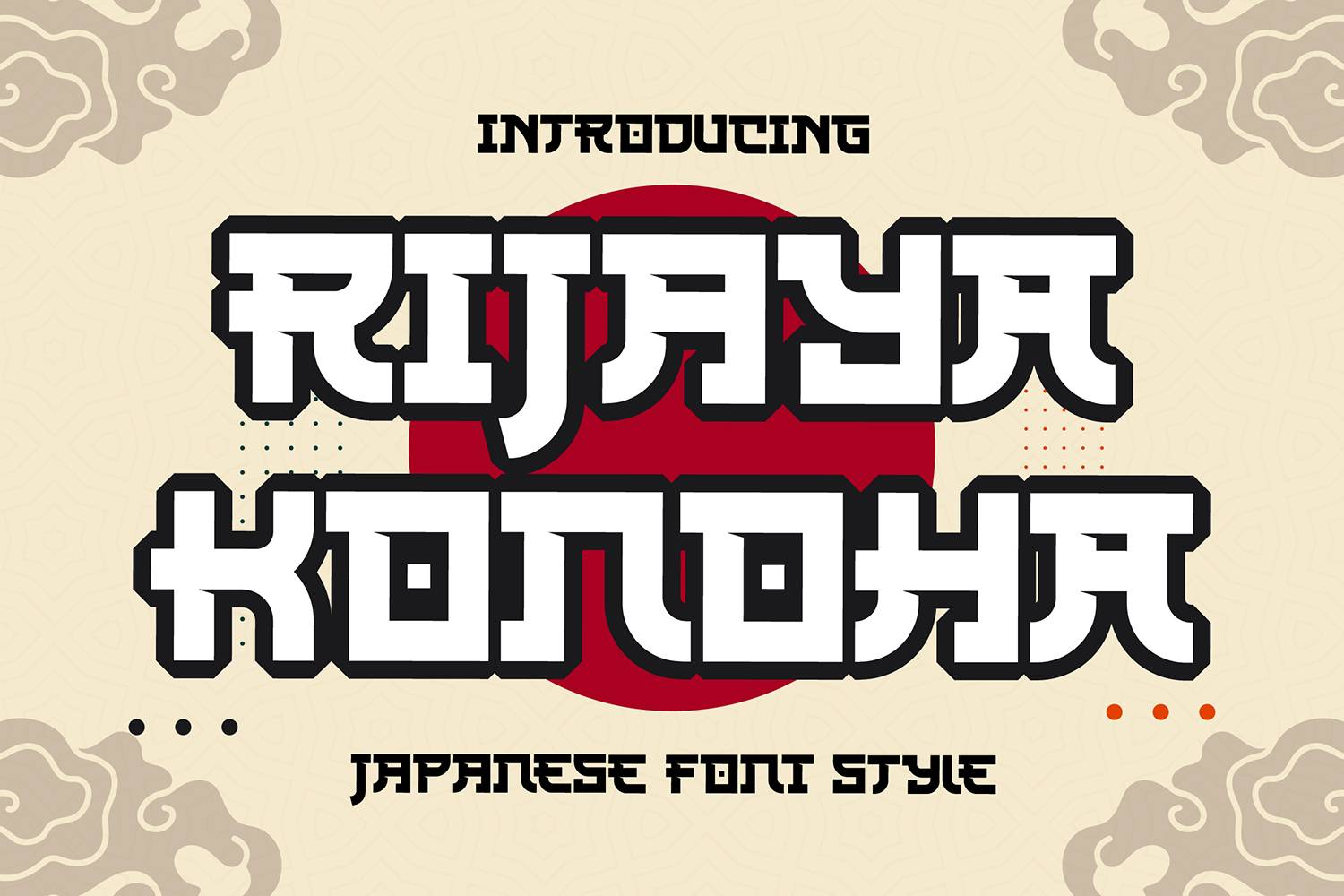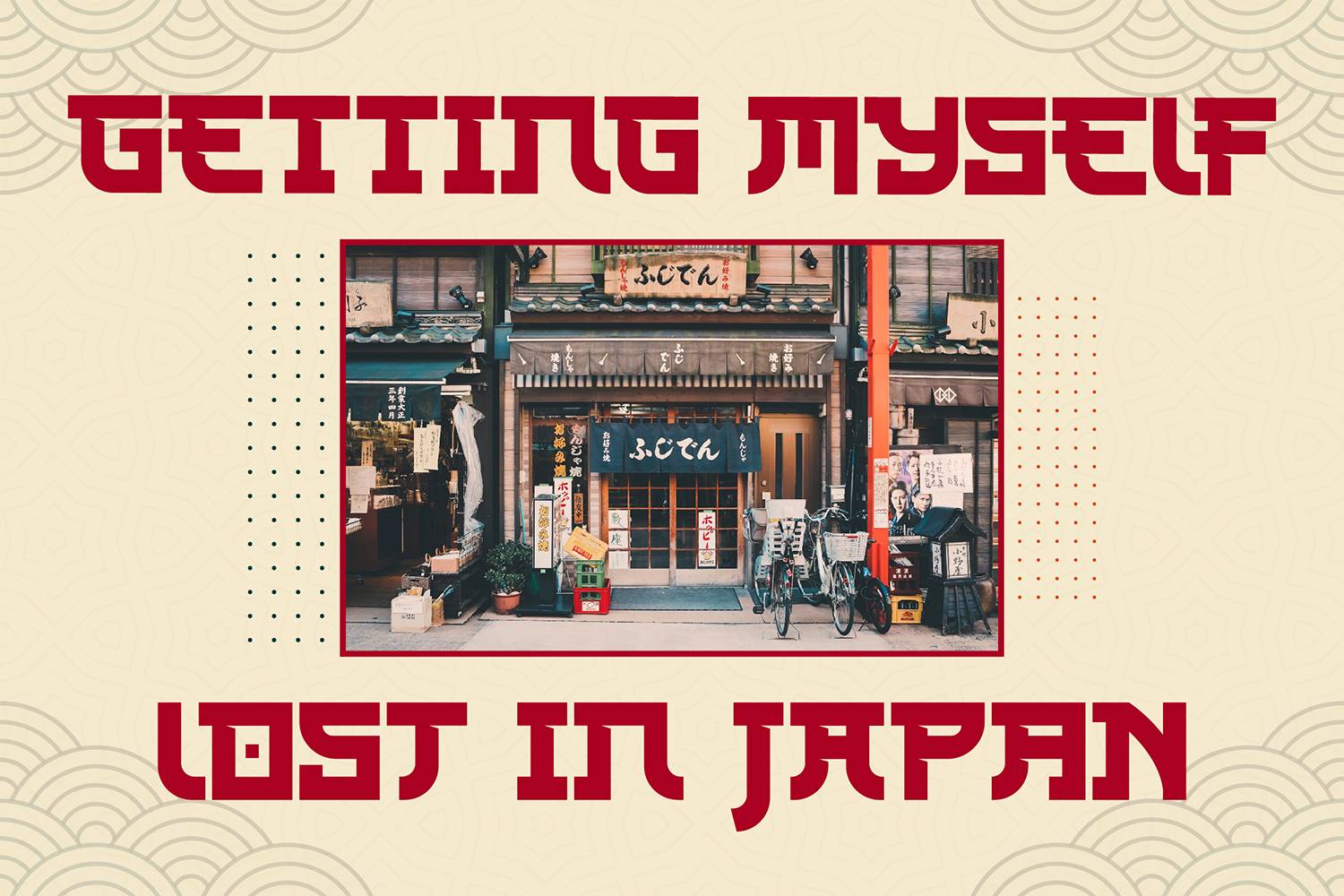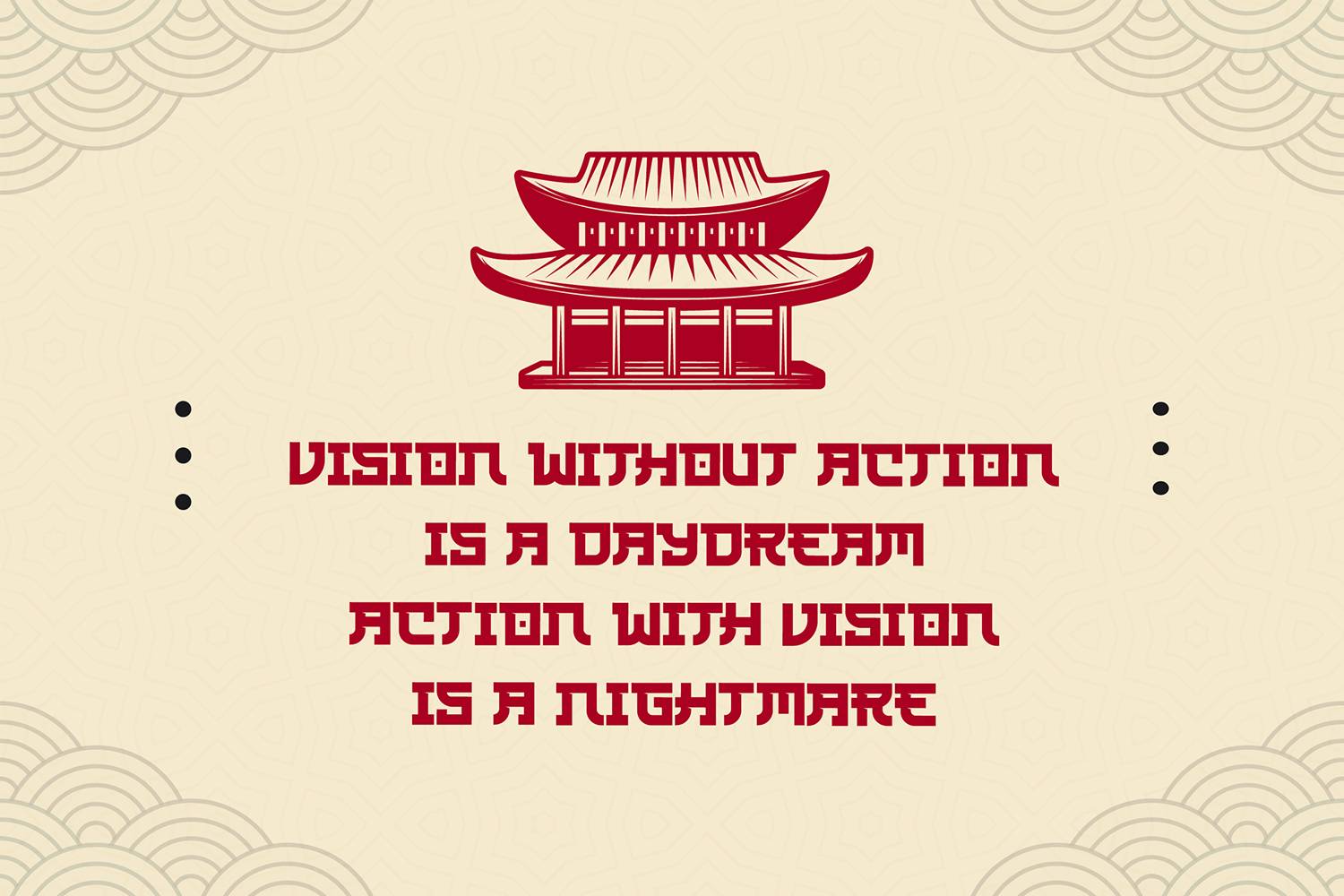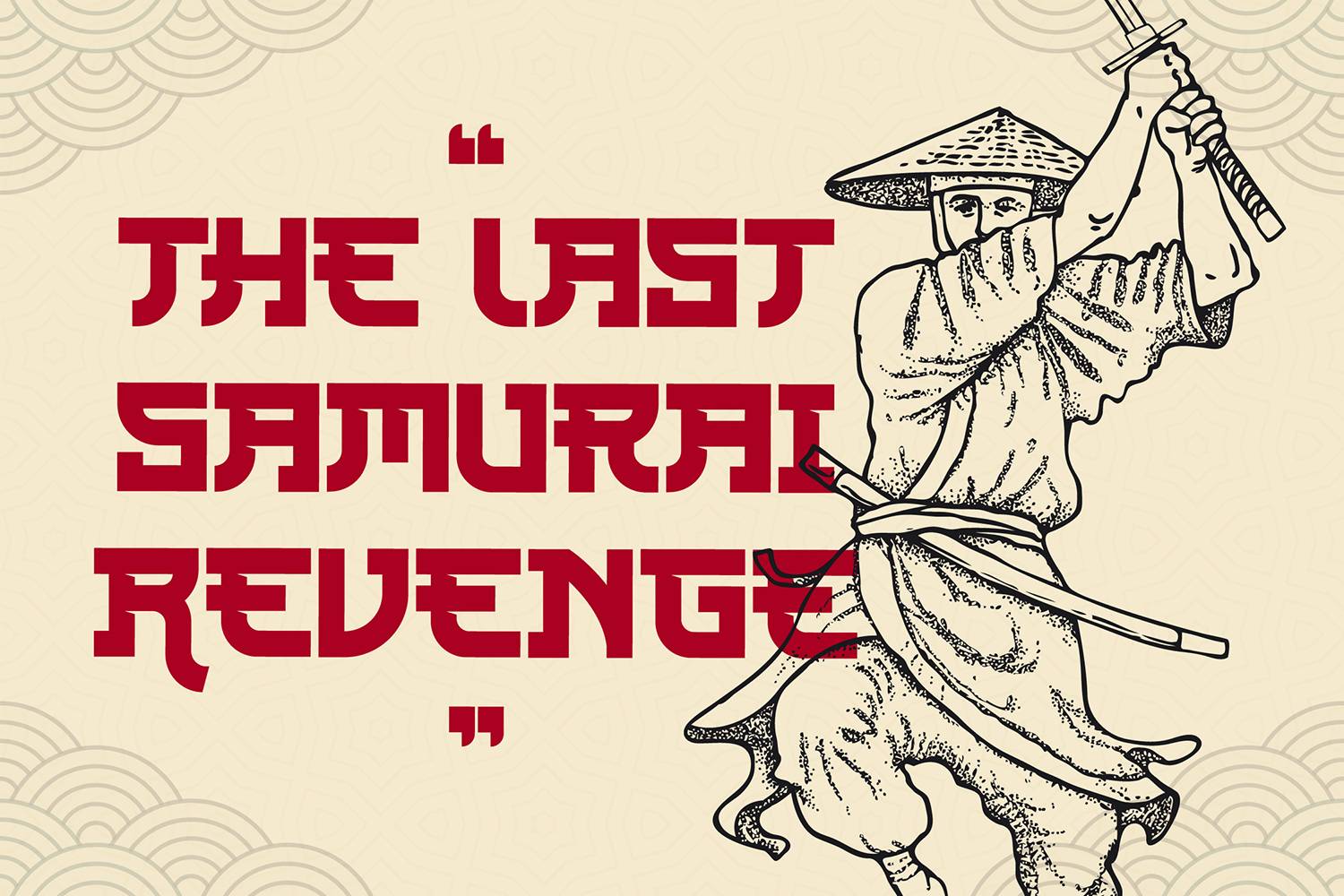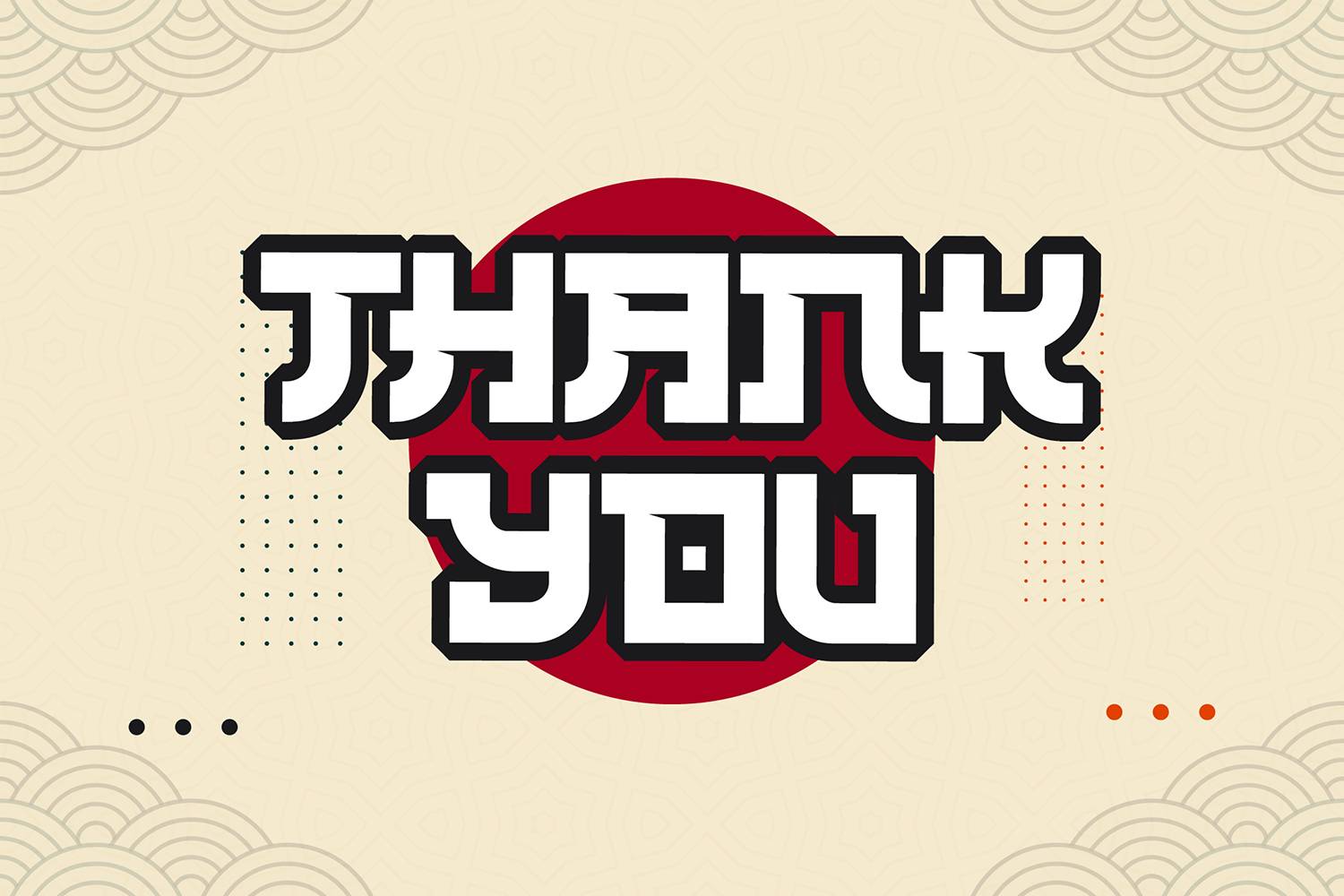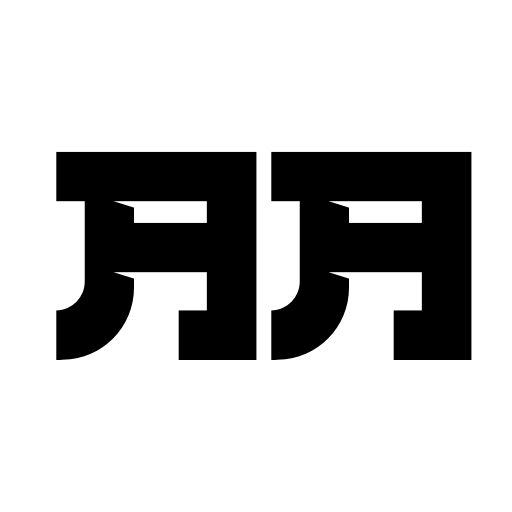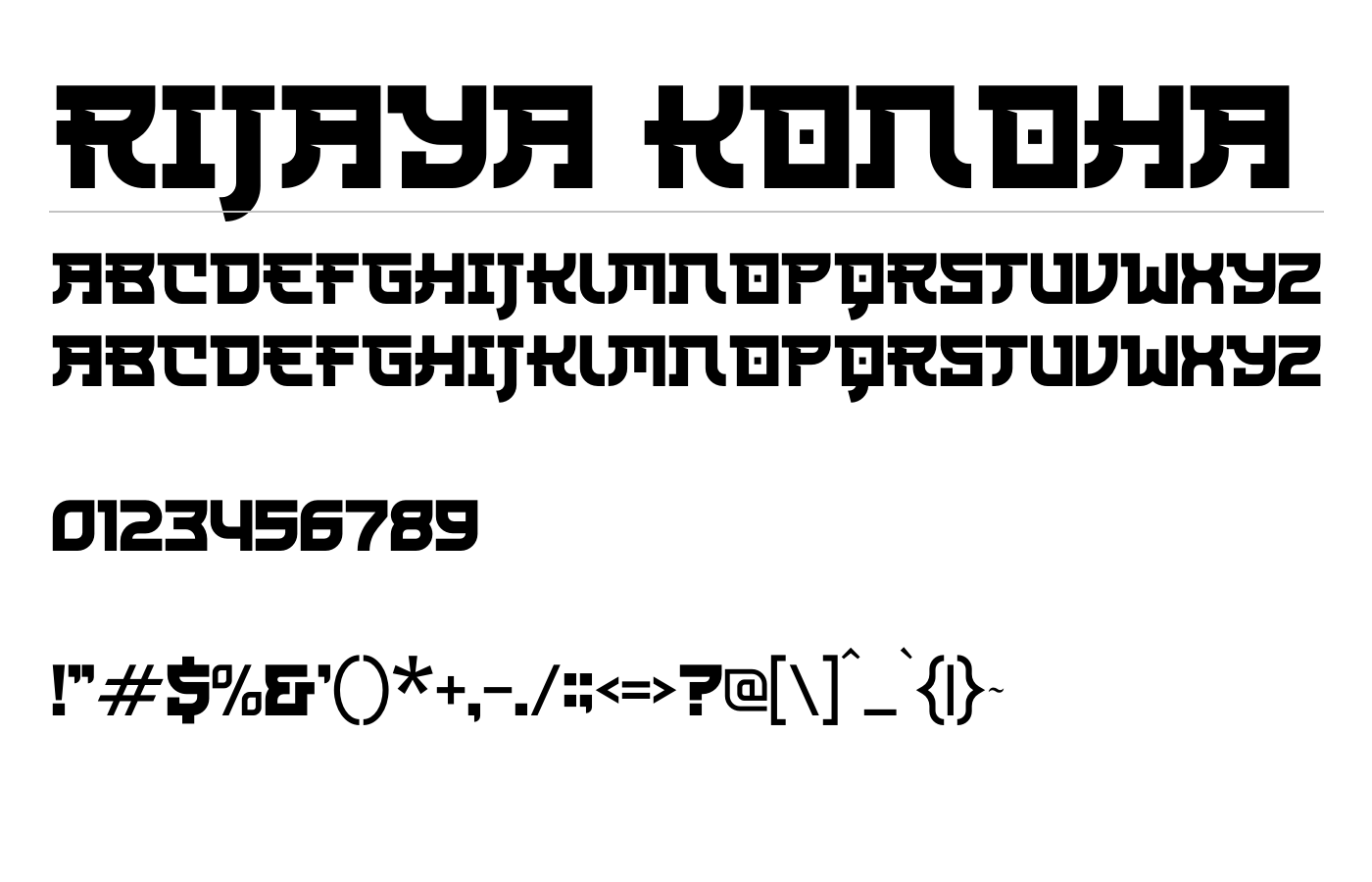
Rijaya Konoha is a bold, geometric sans serif font with a strong, modern presence and a blocky, stencil-like style. Its high contrast and sharp angles give it an industrial, futuristic feel, making it ideal for eye-catching headlines, logos, and branding projects that seek a tech-savvy or edgy vibe. This font works best in display contexts where impact and uniqueness are essential, lending a dynamic and contemporary personality to any design.
Rijaya Konoha Font
About Rijaya Konoha Font